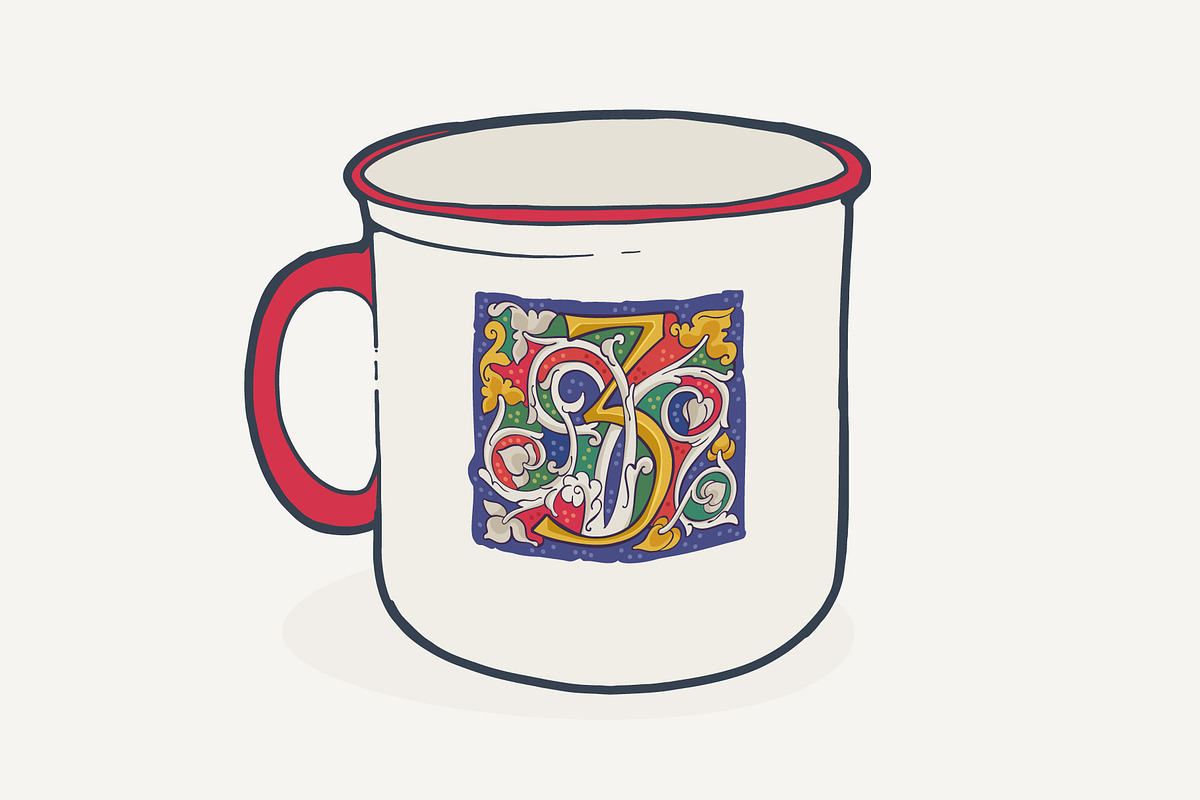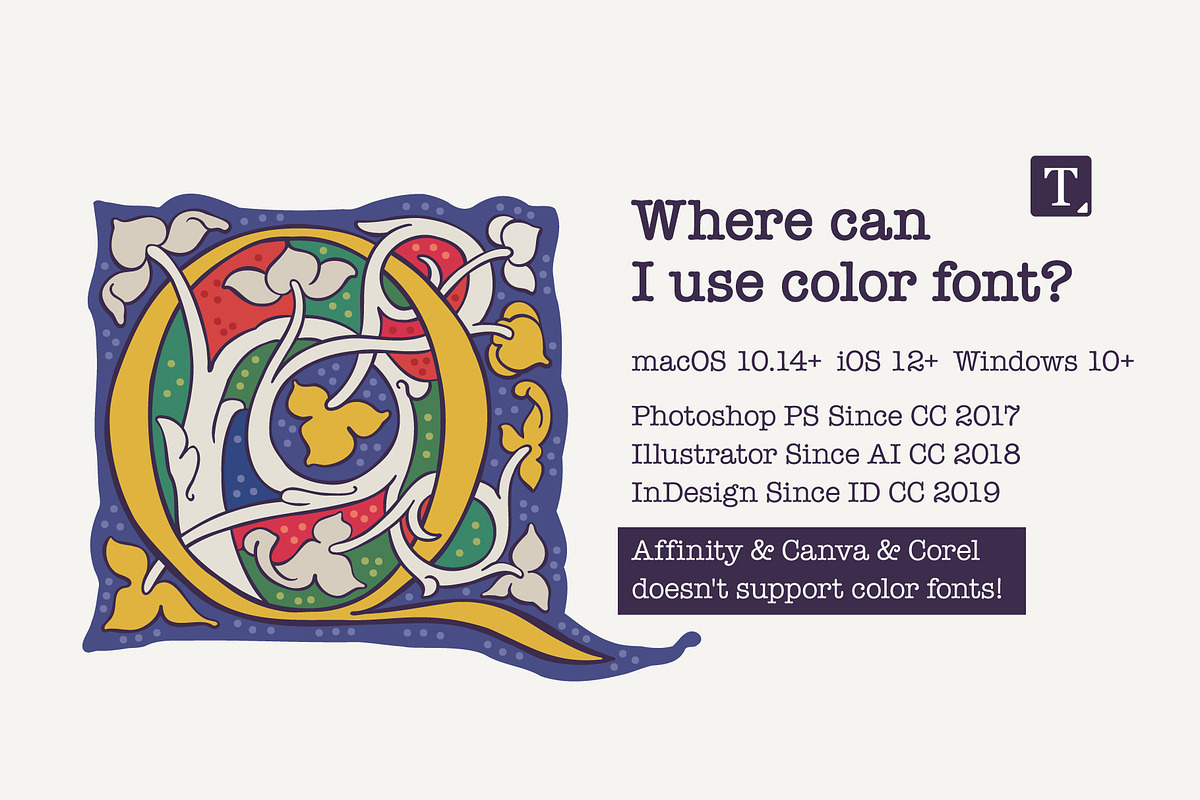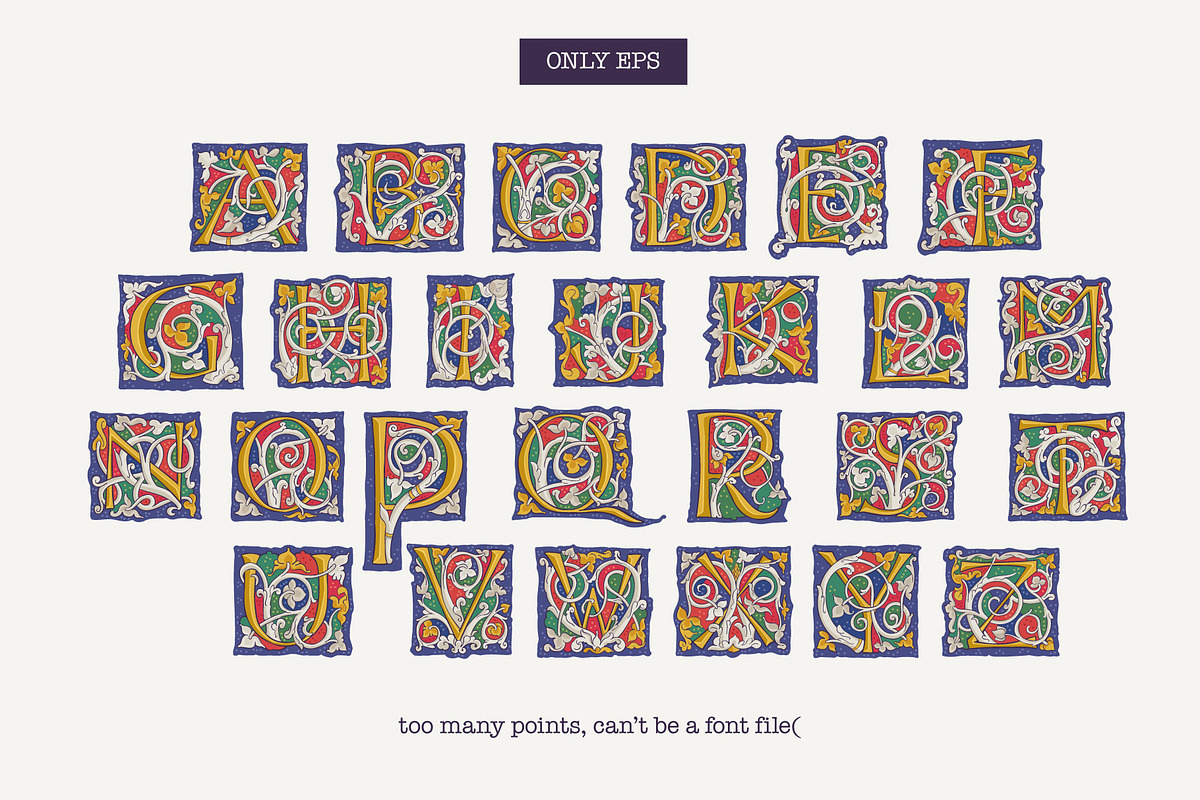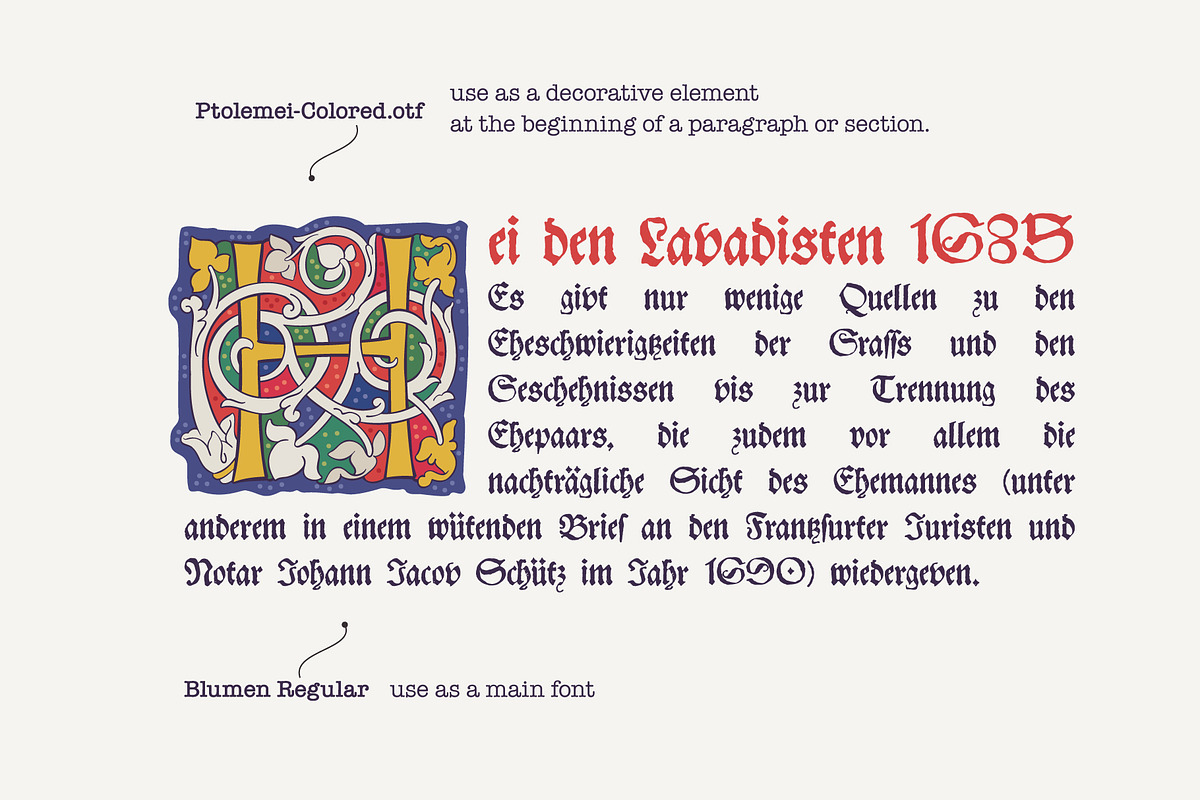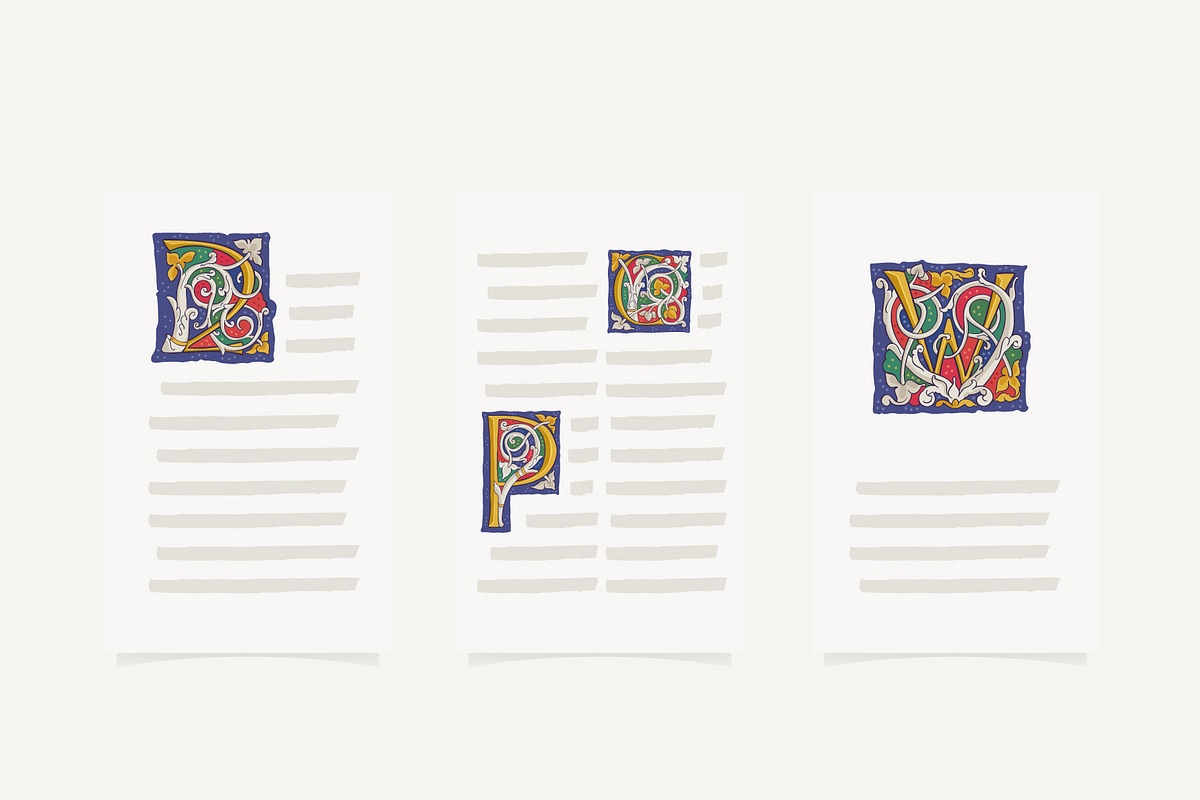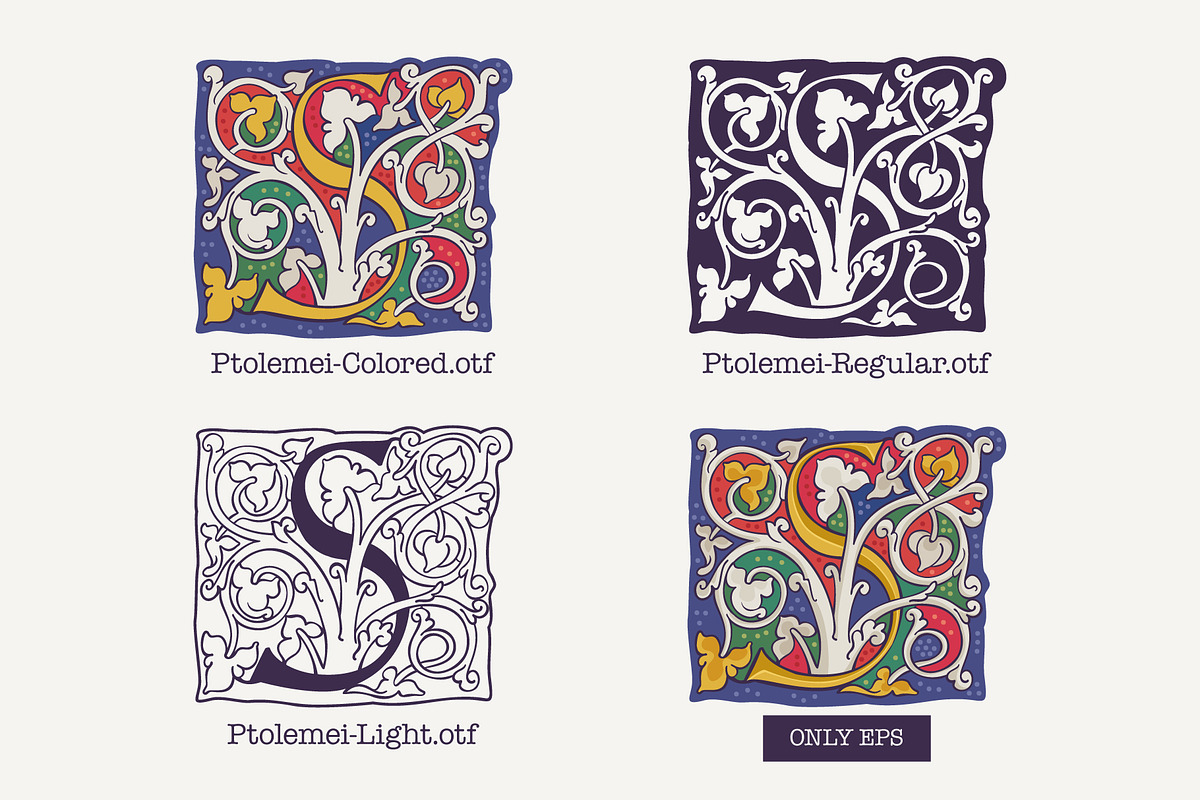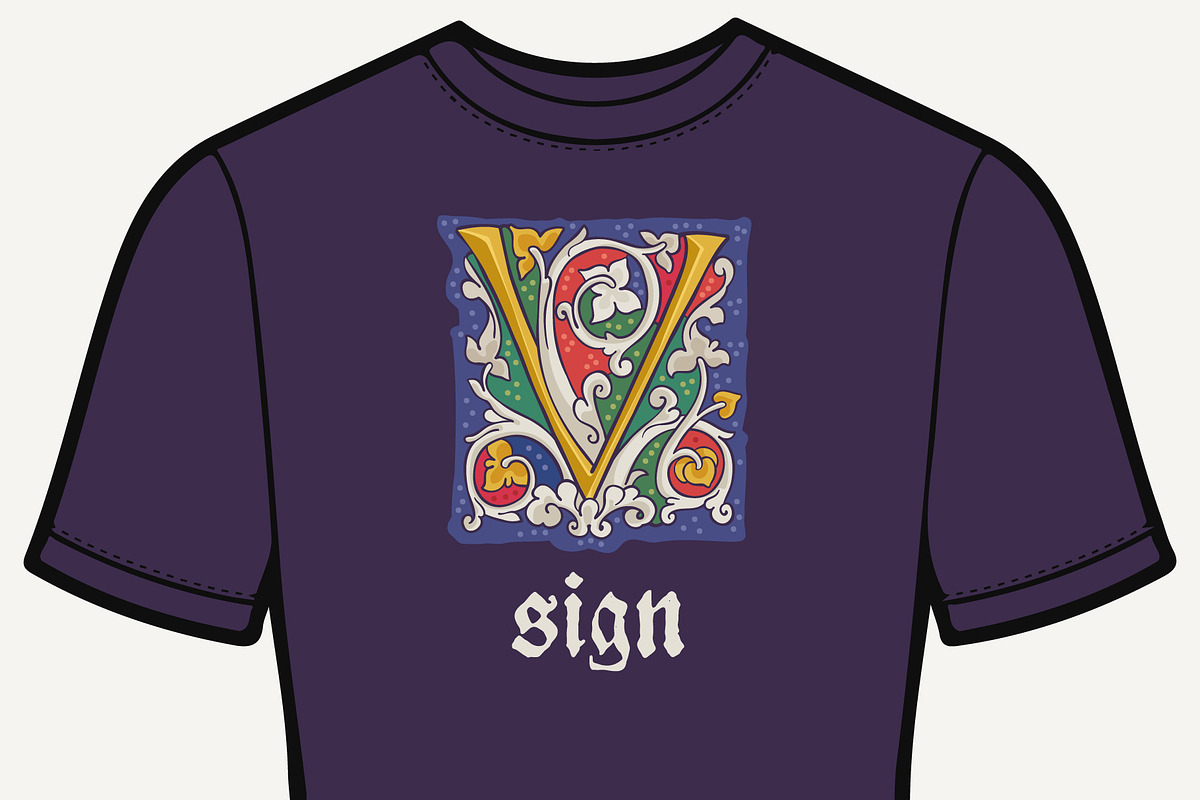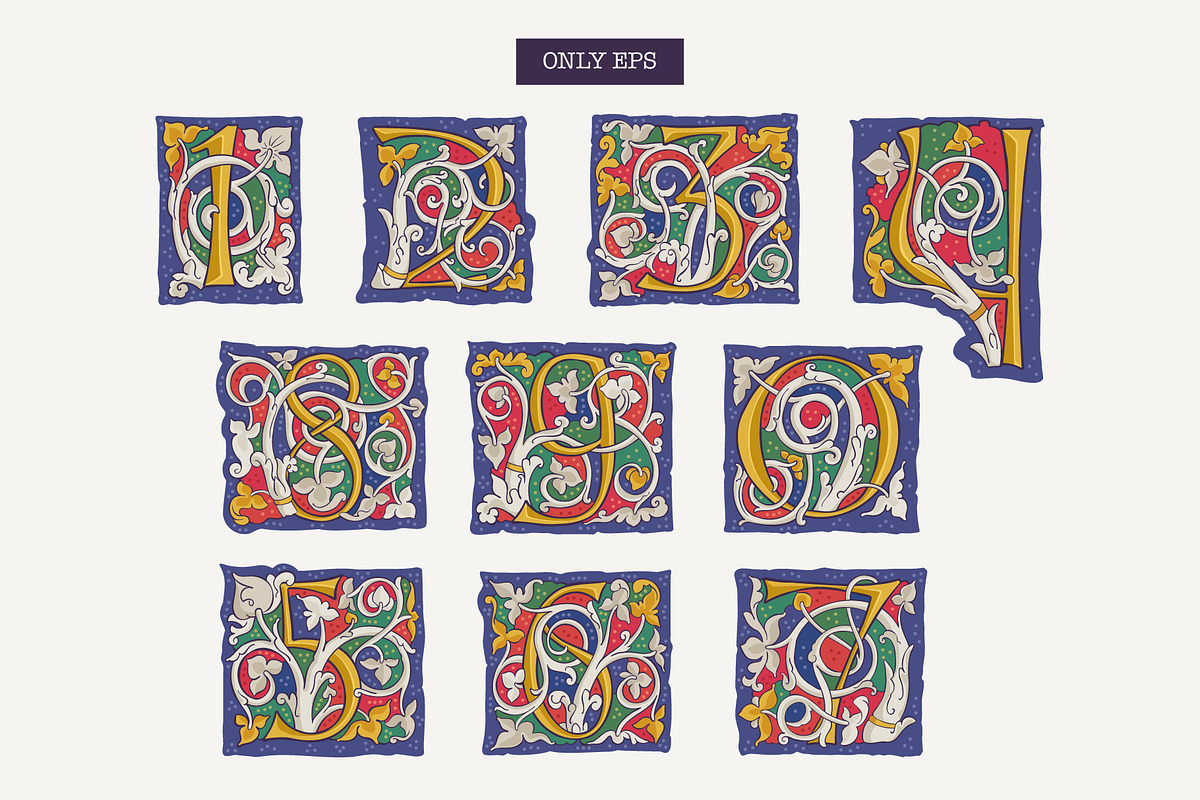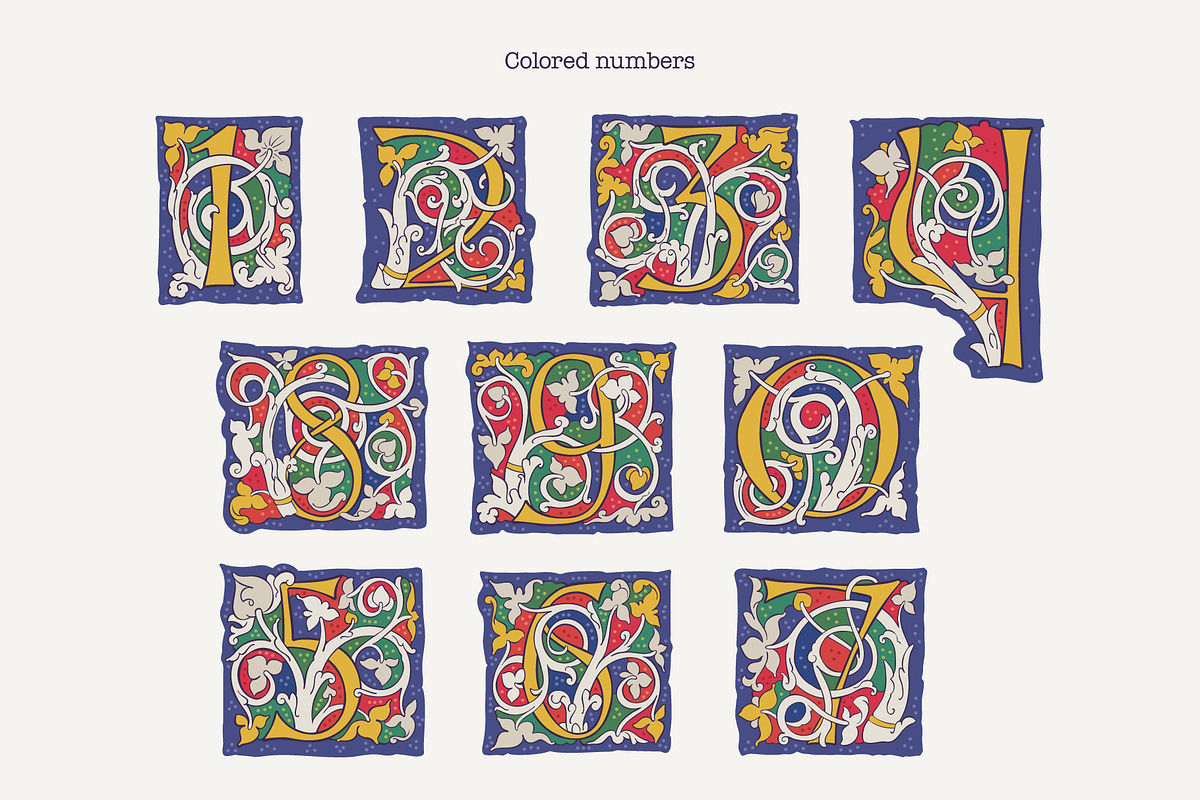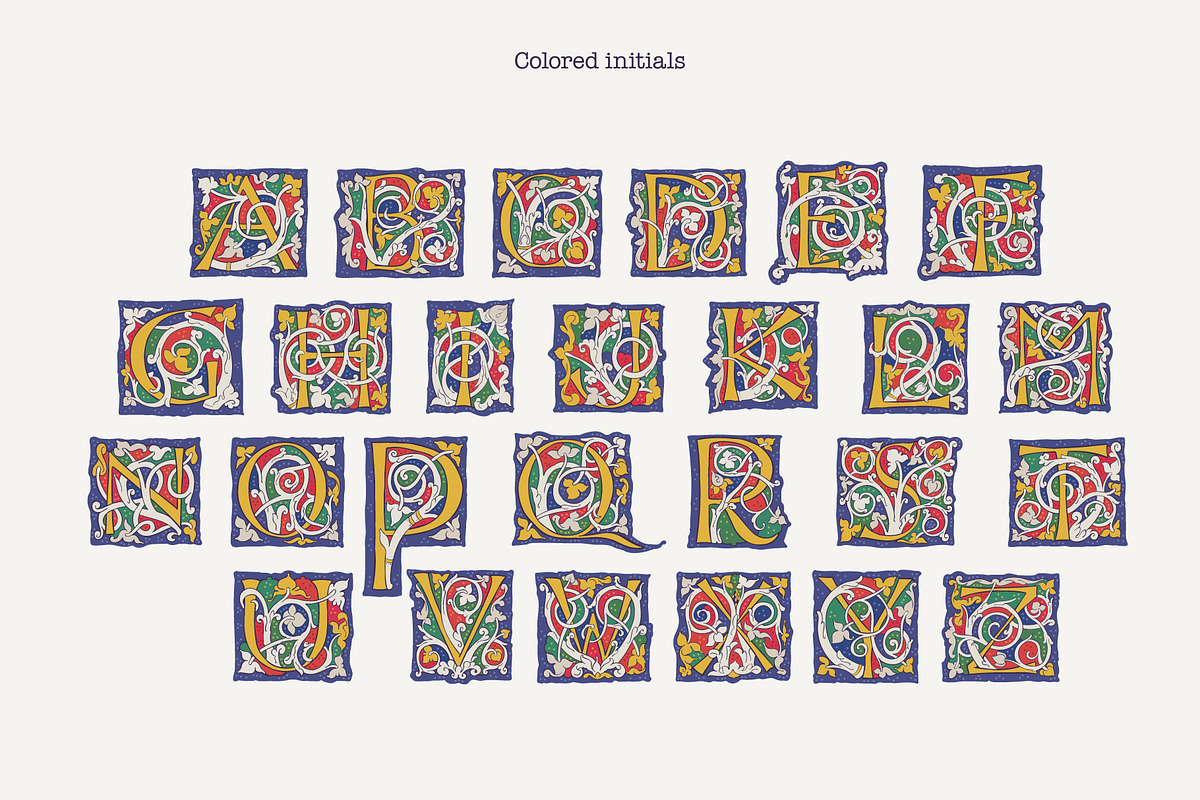
Ptolemei Colored drop caps font
These initials set I collected from Early 15th century manuscript called Claudii Ptolemei Cosmographia, created by the famous Greek scholar Claudius Ptolemaeus in the middle of the 2nd century.
The origins of this style called White Vine with interlaced patterns and vine should be found in Ottonian Renaissance manuscripts.
The highest level of porthole craftsmanship points to the Florentine workshop, headed by Francesco d'Antonio del Chierico, as the most likely place of execution.